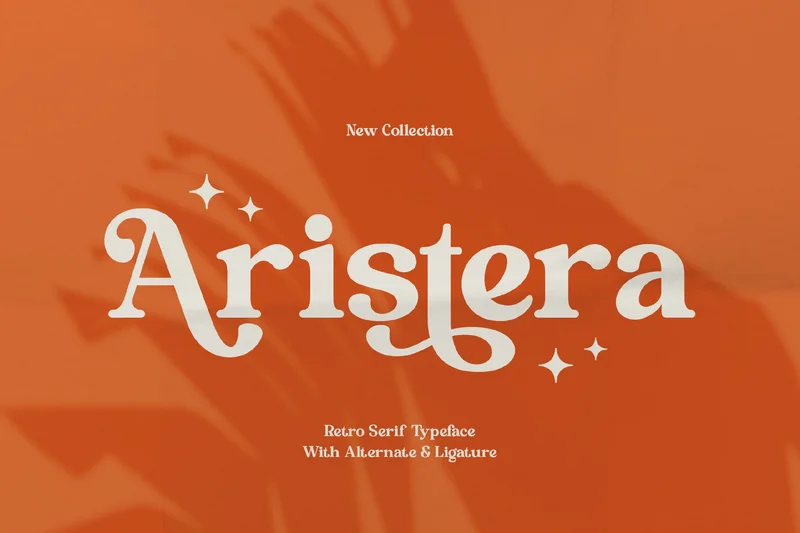
Retro Serif Aristera Font
Retro Serif Aristera — A Timeless Serif with Vintage Charm and Modern Versatility Unveil a font that bridges the golden era of typography with today’s design demands. Retro Serif Aristera is a sophisticated serif typeface crafted for designers, brands, and creatives who seek to evoke nostalgia, elegance, and authority in their visual language.
Key Features :
Uppercase alphabet A-Z
Lowercase alphabet a-z
Numbers 0-9
Some punctuation
Alternates & Ligatures